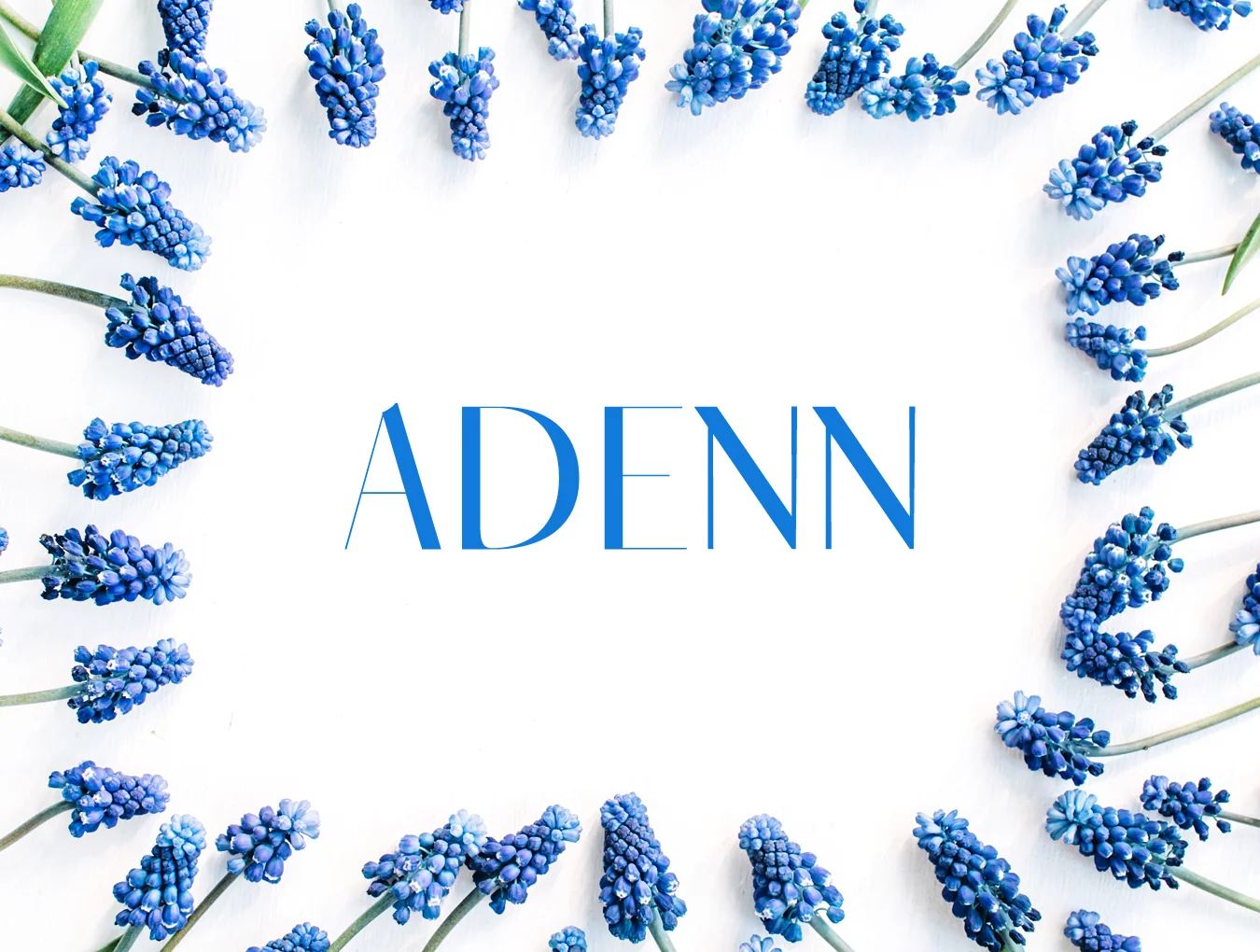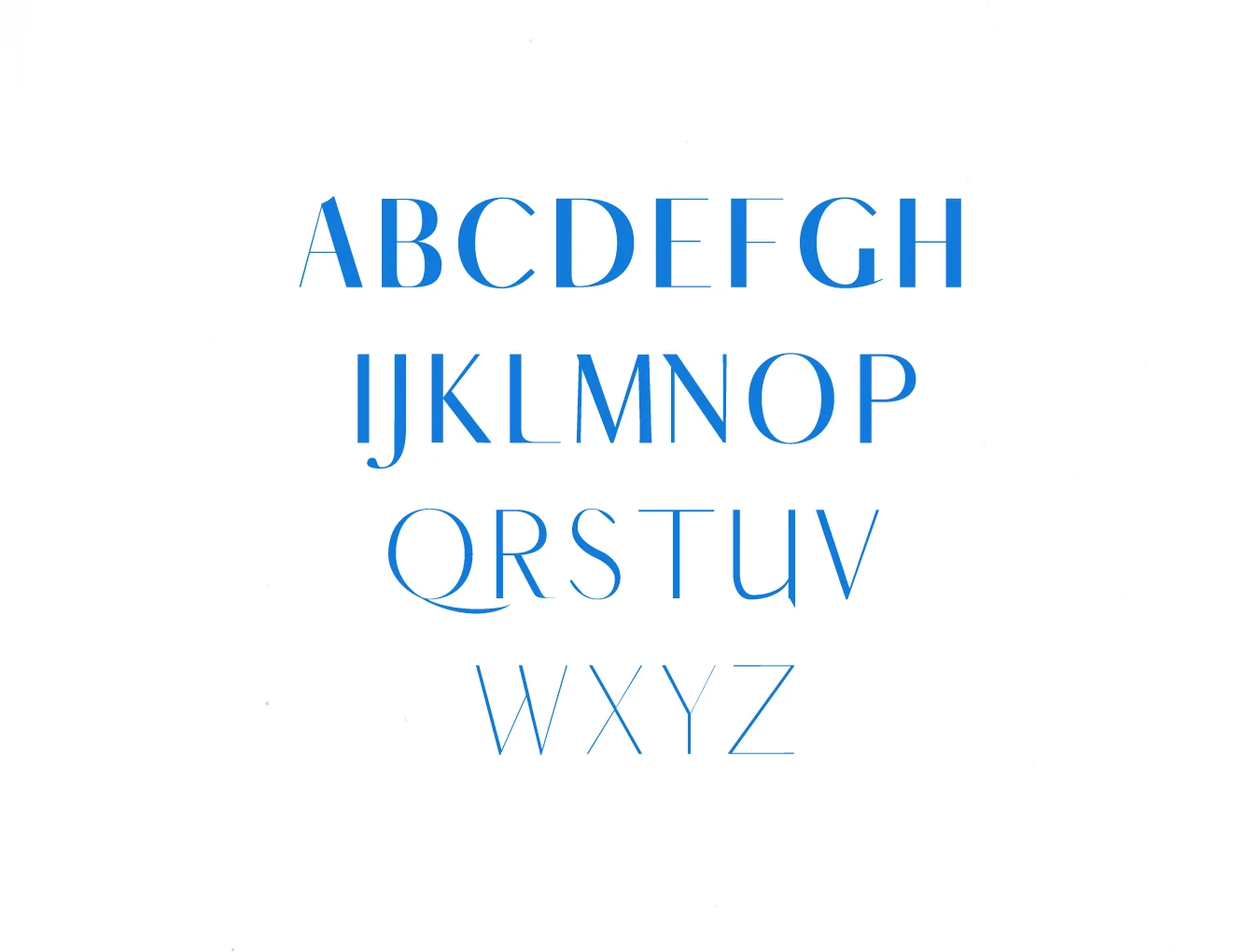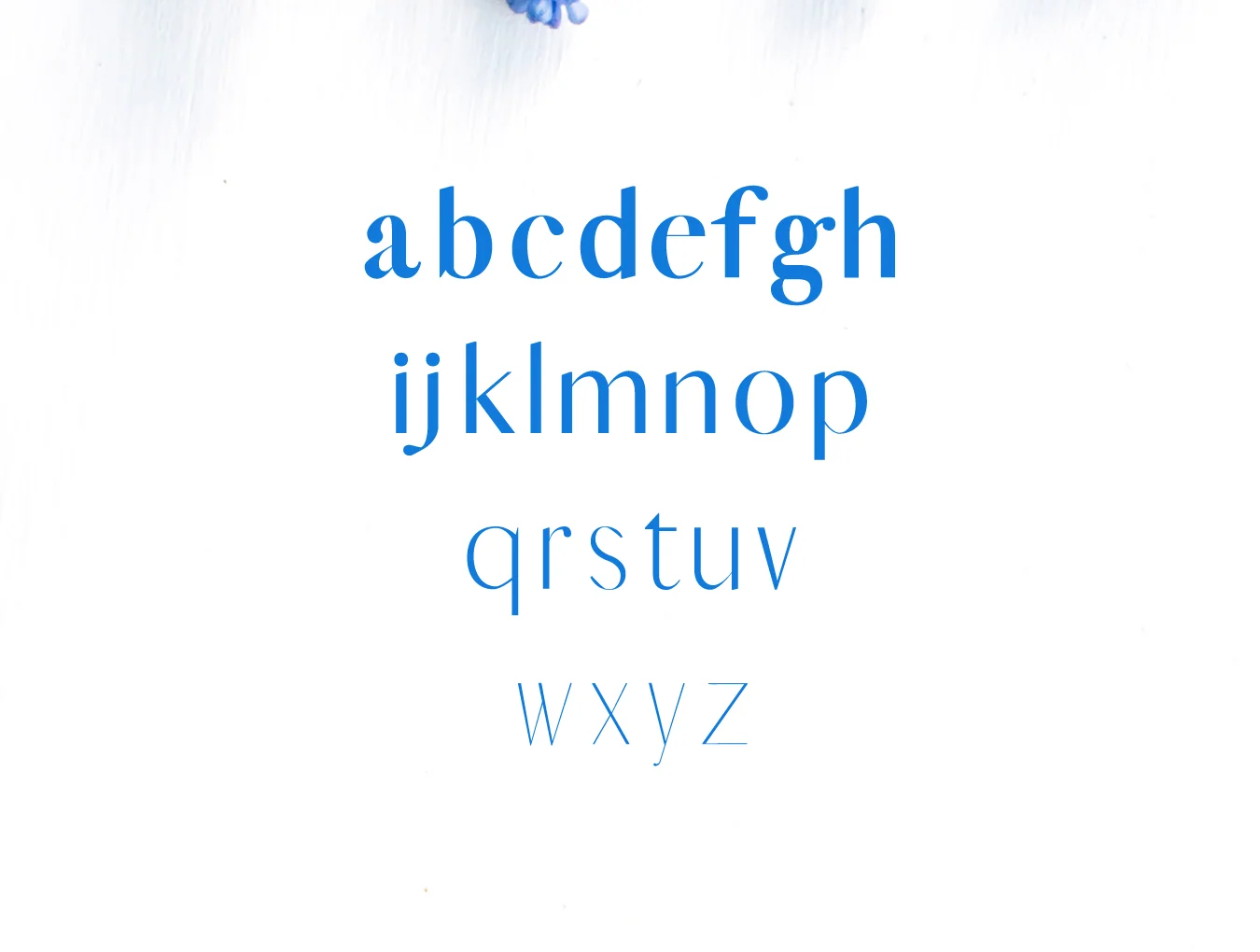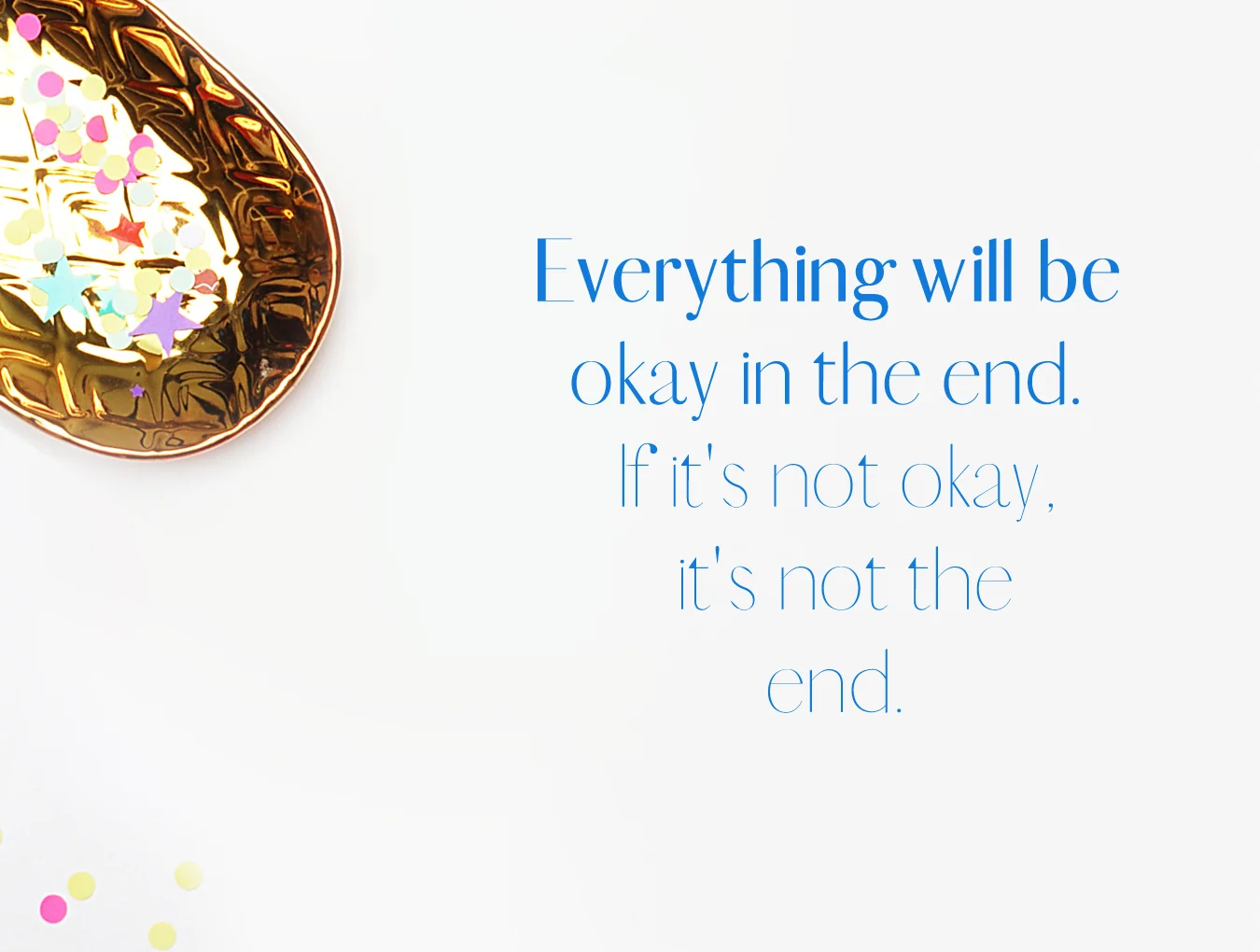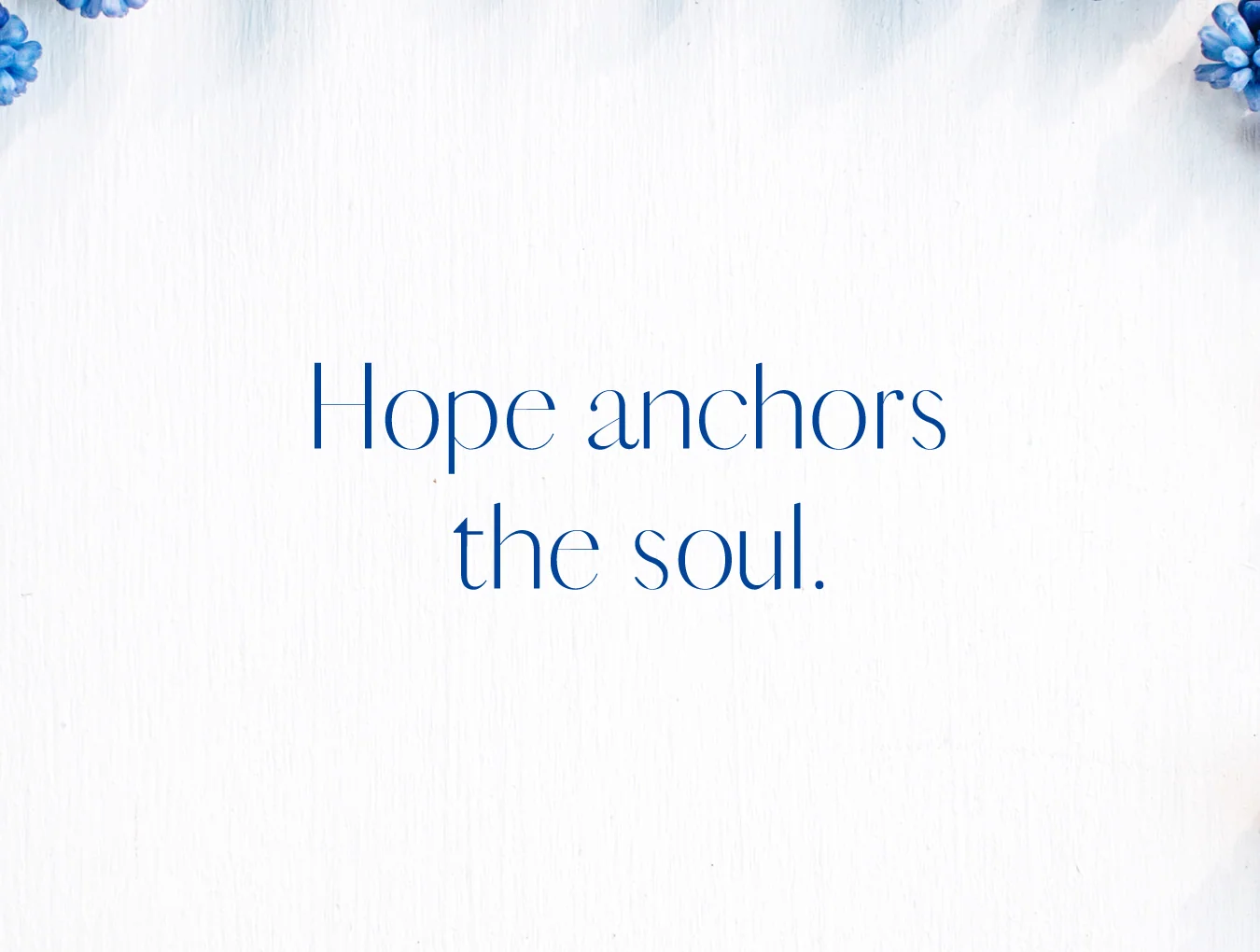
Adenn Sans Serif Typeface
Adenn sans-serif family bundle with 4 fonts
Sans-serif font style
252 included glyphs
Regular and Thin weights
Sans-serif font style
252 included glyphs
Regular and Thin weights
Adenn Serif Typeface is a sleek, minimalist sans serif family with 4 weights and a distinctive contemporary style. Ideal for elegant logos, headings, websites, and brand identities, it works beautifully in spaced all-caps for a refined effect or in mixed uppercase and lowercase for a timeless feel.